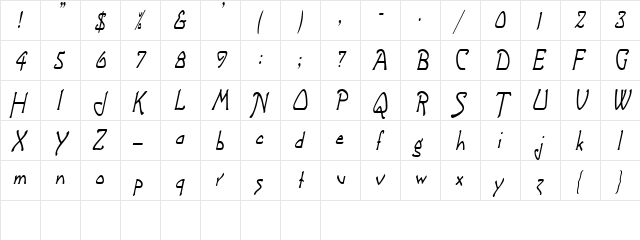
ArgonautCondensed Italic Font Preview
Design Context for ArgonautCondensed Typeface
ArgonautCondensed is a composed and adaptable typeface that performs quietly and consistently across a wide range of design contexts. The slanted form adds forward momentum and visual energy. The condensed width makes it efficient for tight spaces without sacrificing legibility.
Pro Tip: Try ArgonautCondensed for annotation and caption copy alongside an upright companion — the contrast in angle creates a dynamic but ordered typographic system.